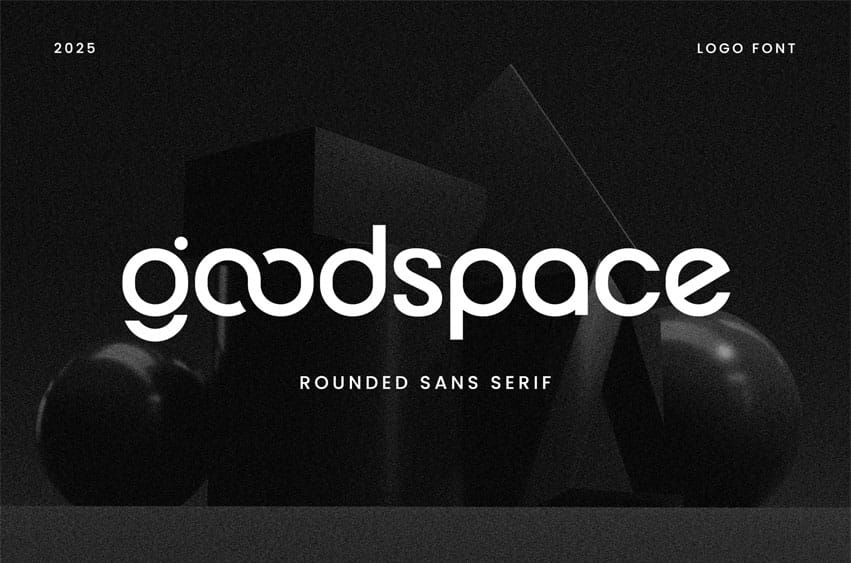
Goodspace Font Rounded Sans Serif Font emerges as a vibrant typographic system that brilliantly captures the spirit of approachable modernism through its thoughtfully softened geometric architecture. This refreshingly versatile font family provides designers with a comprehensive toolkit that balances friendly accessibility with professional clarity, enabling warm, welcoming communication for brands and projects seeking to establish genuine connections with contemporary audiences. The font’s meticulously crafted letterforms feature clean structural foundations enhanced by carefully calibrated rounded terminals, creating a harmonious visual rhythm that conveys openness and optimism while maintaining exceptional readability across diverse applications.
Developed through thoughtful exploration of how geometric principles can be humanized through strategic softening, Goodspace Rounded Sans Serif Font achieves a distinctive personality that feels both current and inviting. Its consistent stroke implementation and precisely engineered rounded corners create a cohesive visual character that enhances approachability while projecting modern confidence. The typeface’s development prioritizes versatile performance across digital interfaces and print environments, with optimized forms that maintain their friendly character and impact across various contexts and sizes.
Goodspace Rounded Sans Serif Font demonstrates particular excellence in environments where brands and organizations seek to communicate with warmth, accessibility, and contemporary relevance. Its versatility makes it ideal for technology startups with human-centered missions, wellness brands, educational platforms, community initiatives, and lifestyle products that value approachable sophistication. The font’s ability to convey openness and innovation while maintaining professional credibility makes it particularly valuable for projects requiring a balance of friendliness and functional clarity, offering designers a typographic voice that resonates with audiences appreciating both contemporary aesthetics and genuine accessibility.
Goodspace Rounded Sans Serif Font Features:
- Humanized Geometric Architecture with Strategic Rounding
- Balanced Letterforms with Optimized Proportions for Readability
- Comprehensive Character Set Supporting Inclusive Communication
- Thoughtfully Designed Alternates for Expressive Typography
- Advanced OpenType Implementation for Professional Control
- Complete Weight Range from Light to Bold for Versatile Expression
- Proportional and Tabular Figures for Various Numerical Applications
- Carefully Considered Case-Sensitive Forms and Accessible Symbols
- Optimized Spacing and Kerning for Superior Text Setting
- Exceptional Legibility Across Digital Interfaces and Print Media
- Cross-Platform Performance Optimization for Consistent Display
Goodspace Rounded Sans Serif Font represents a significant achievement in contemporary type design, offering creators a comprehensive system that delivers both distinctive warmth and functional excellence. Its thoughtful development ensures exceptional versatility across applications while maintaining the friendly, progressive aesthetic that enhances modern visual communication. For designers and organizations seeking typography that projects accessibility, innovation and genuine connection, this font family provides an essential resource that embraces human-centered design principles while offering the practical versatility required by today’s multifaceted communication challenges.